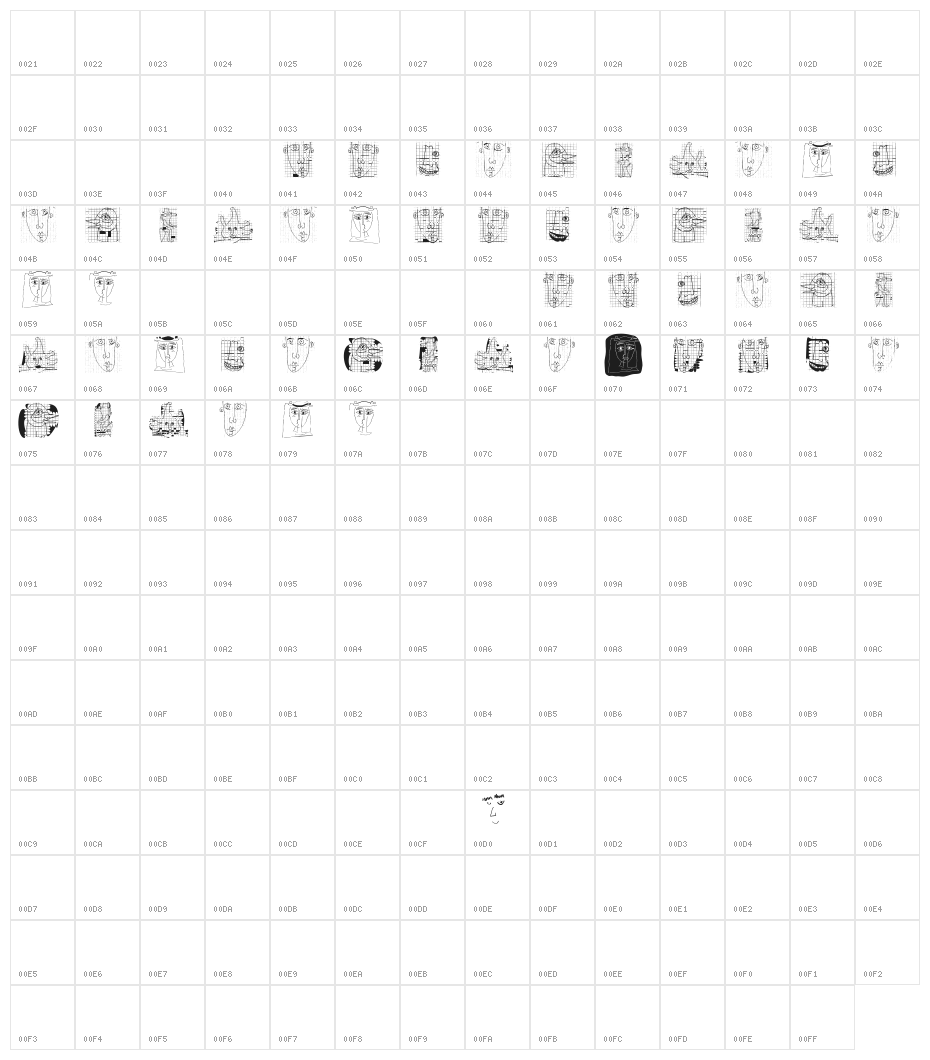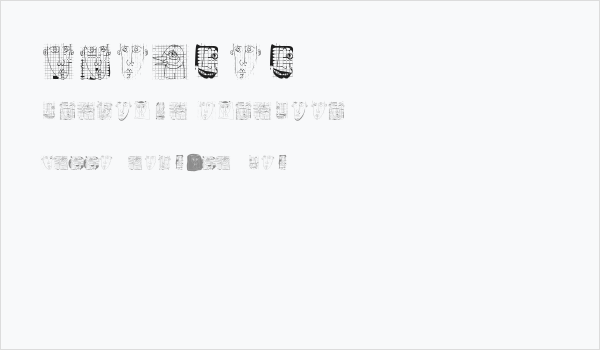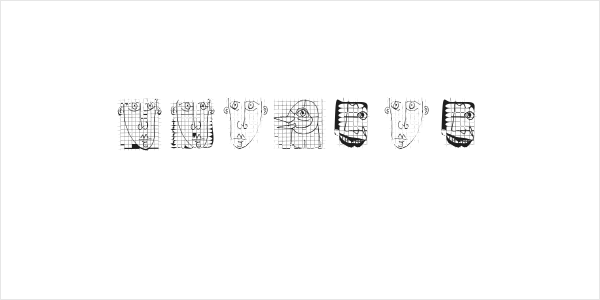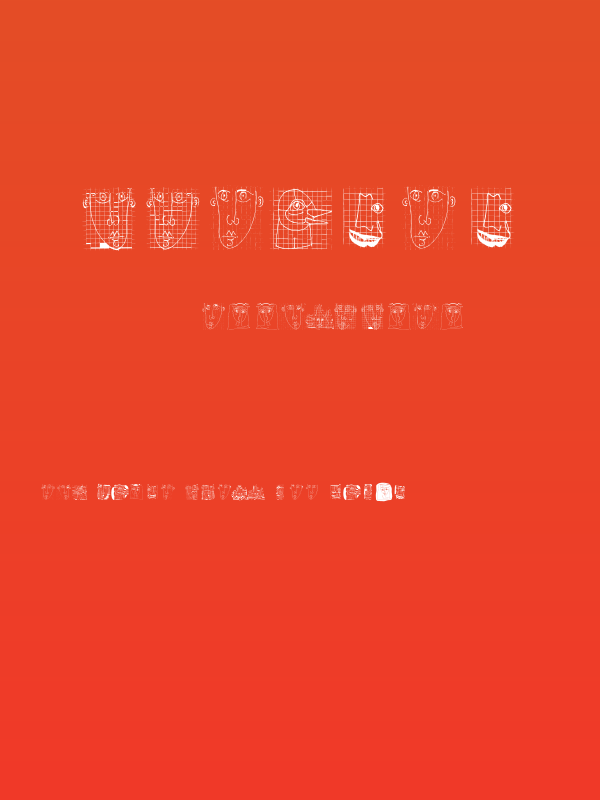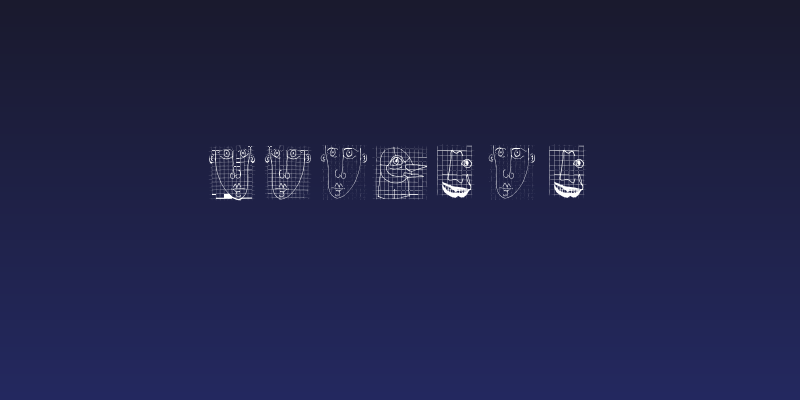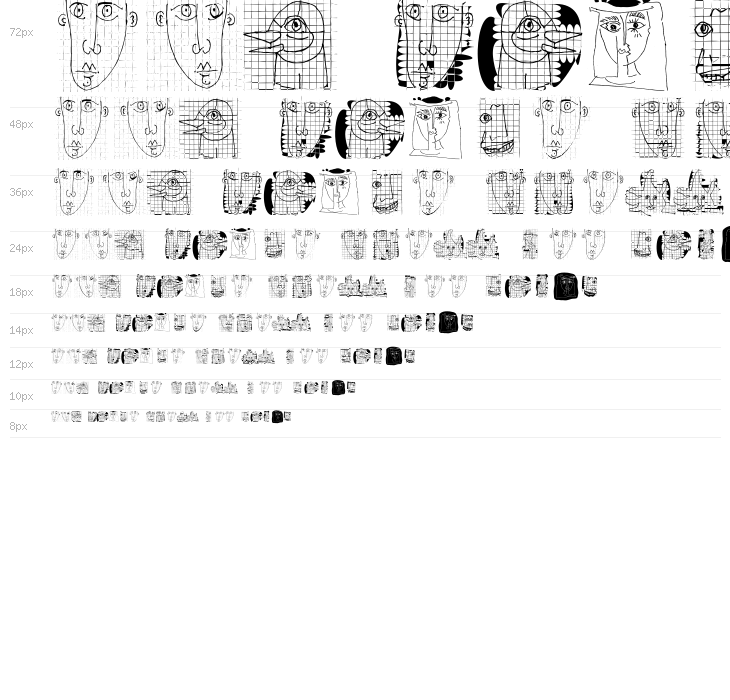
Artests Font
Artests Description
Highly decorative and artistic font featuring abstract, sketch-like faces and grid patterns within each character, creating a unique and expressive visual style.
| Overall Style | Decorative, Artistic, Abstract |
| Use Case | Logos, Headlines, Posters, Artistic projects |
| Proposed Projects | Art posters, album covers, creative branding, gallery invitations, editorial headlines. |